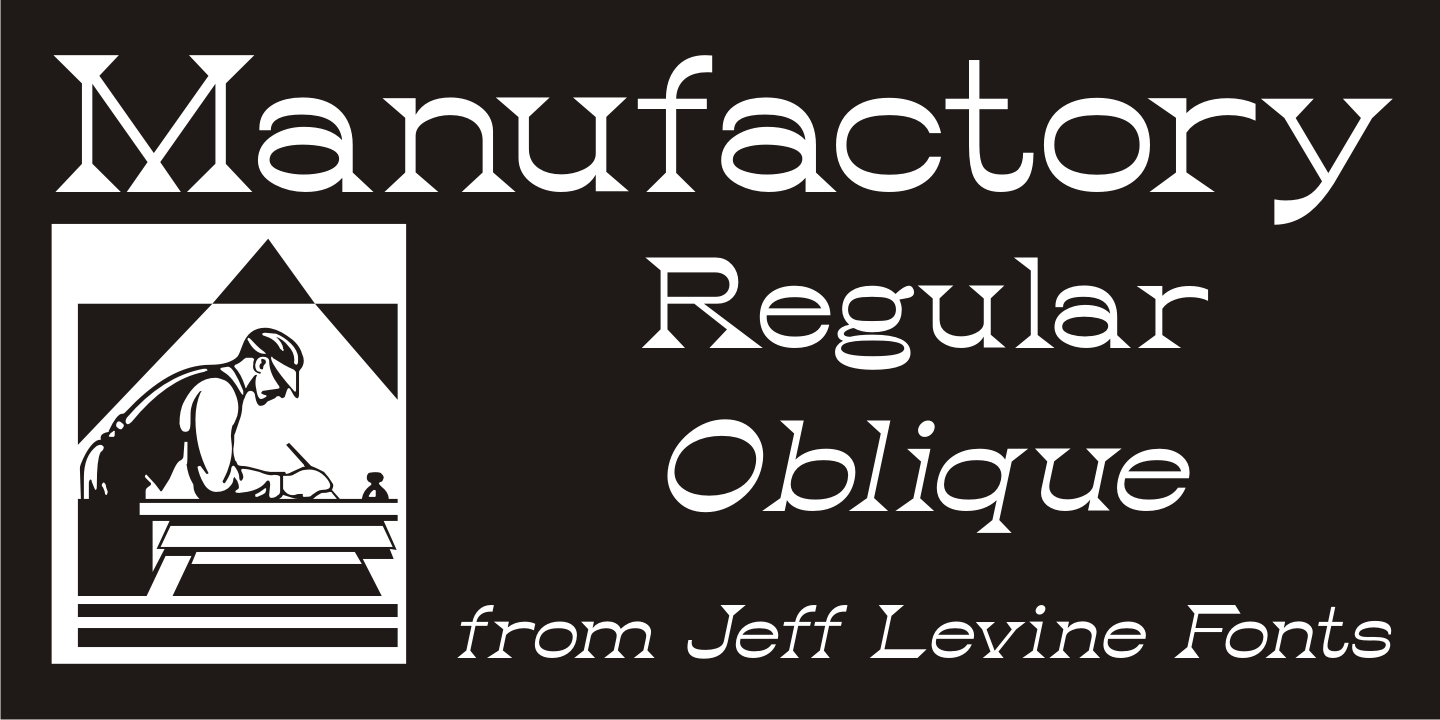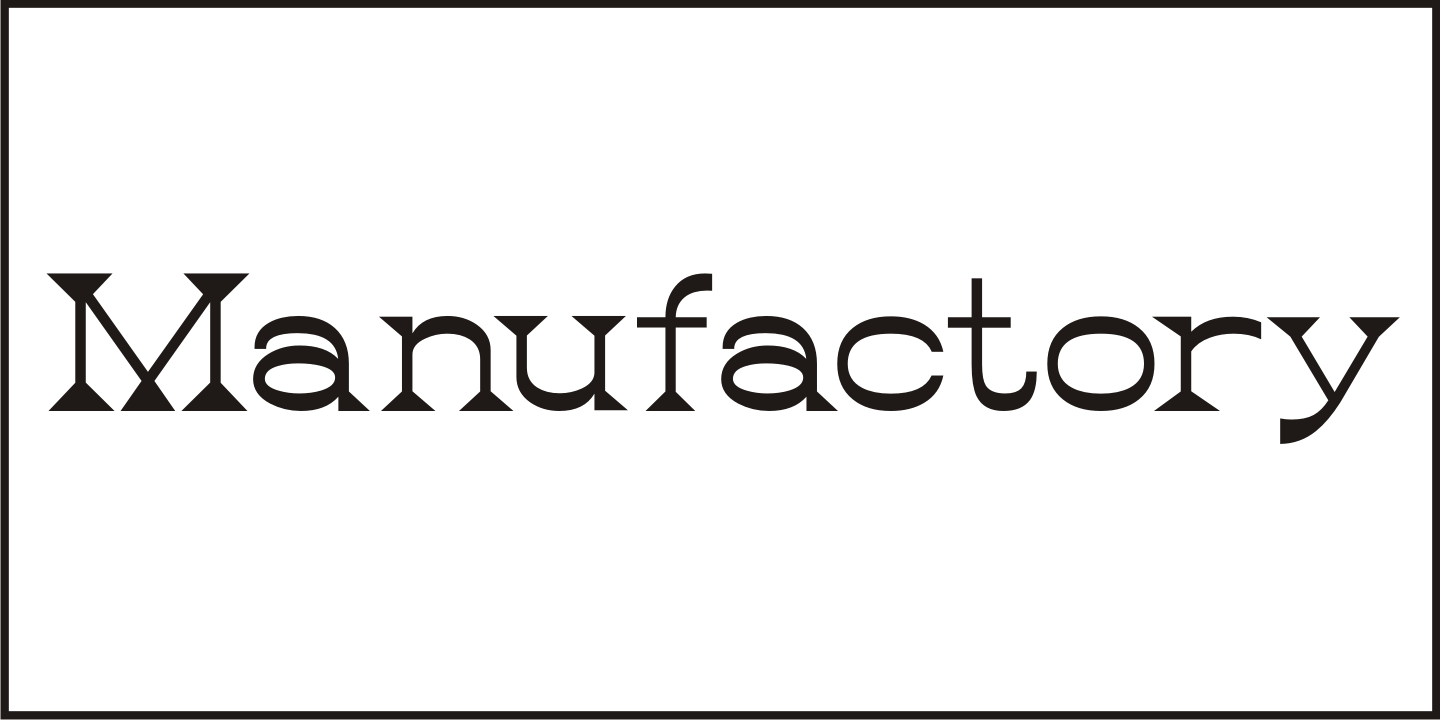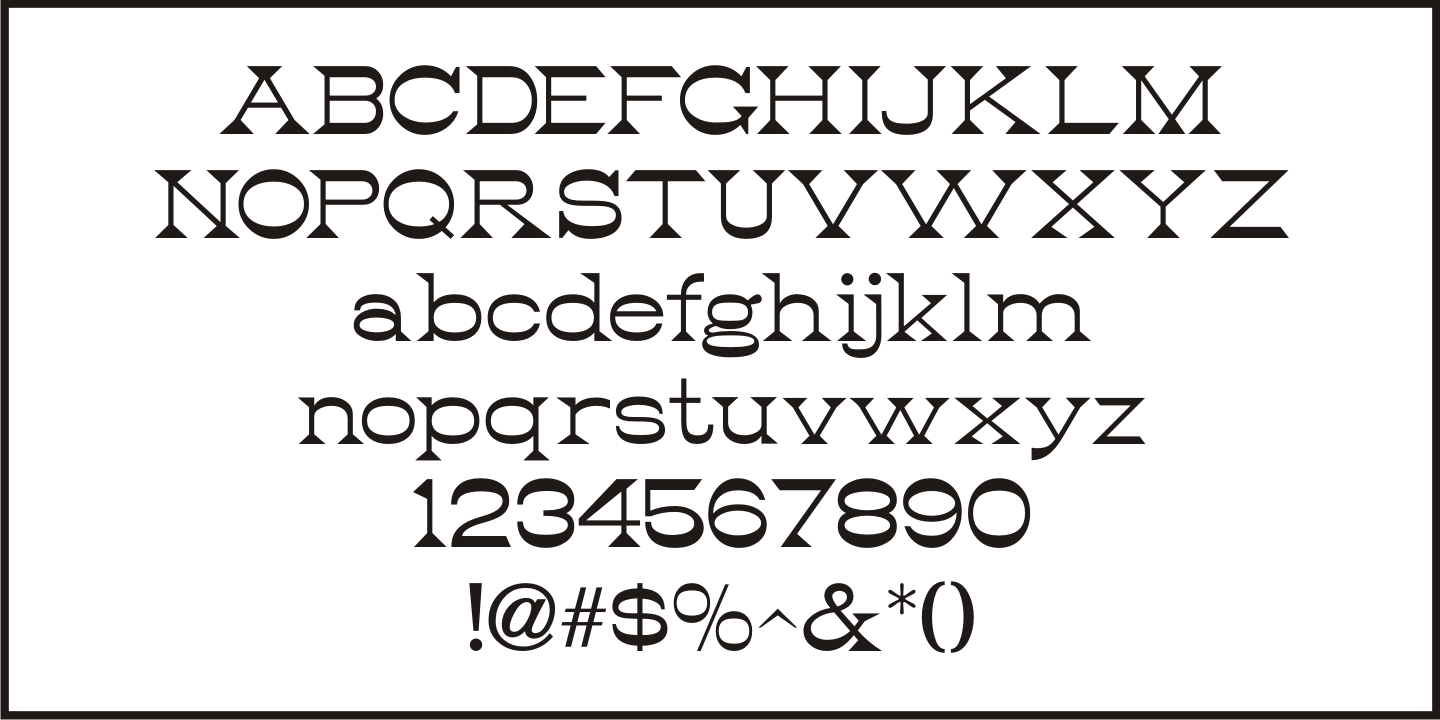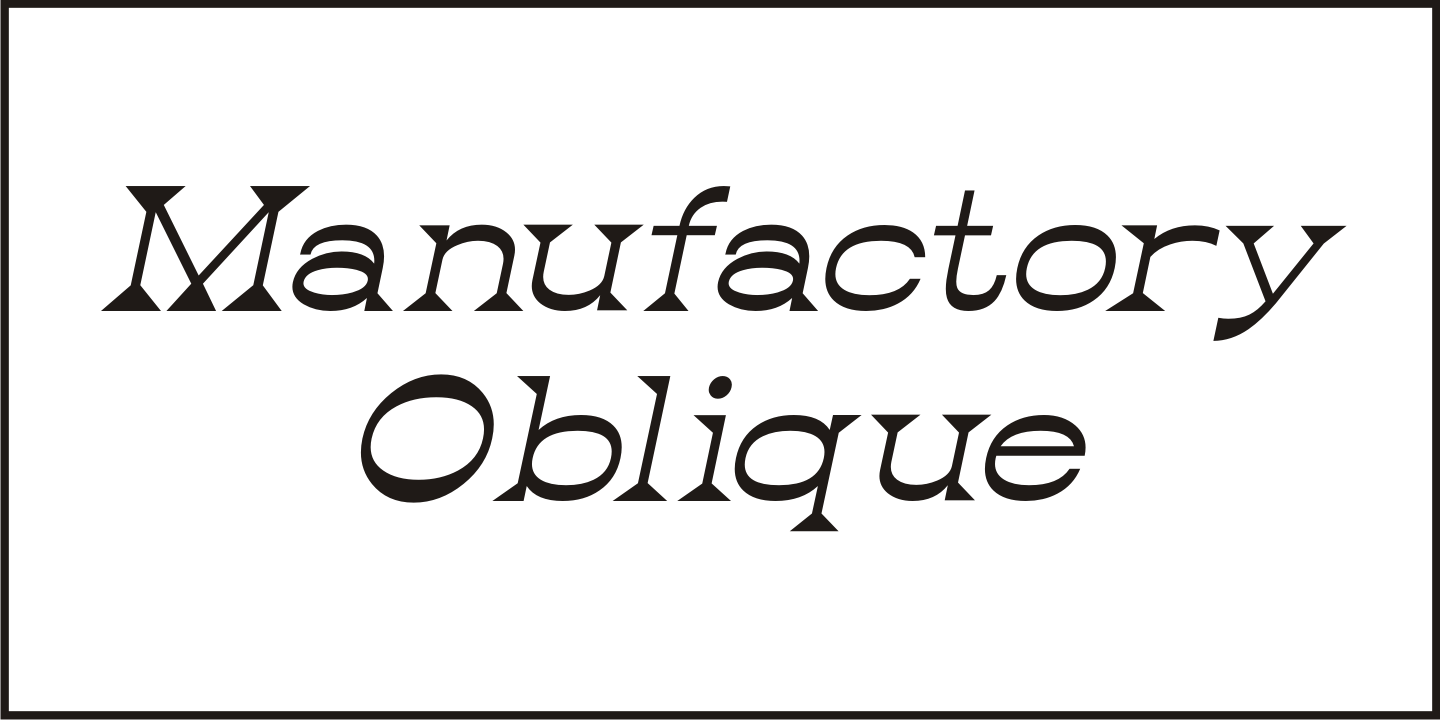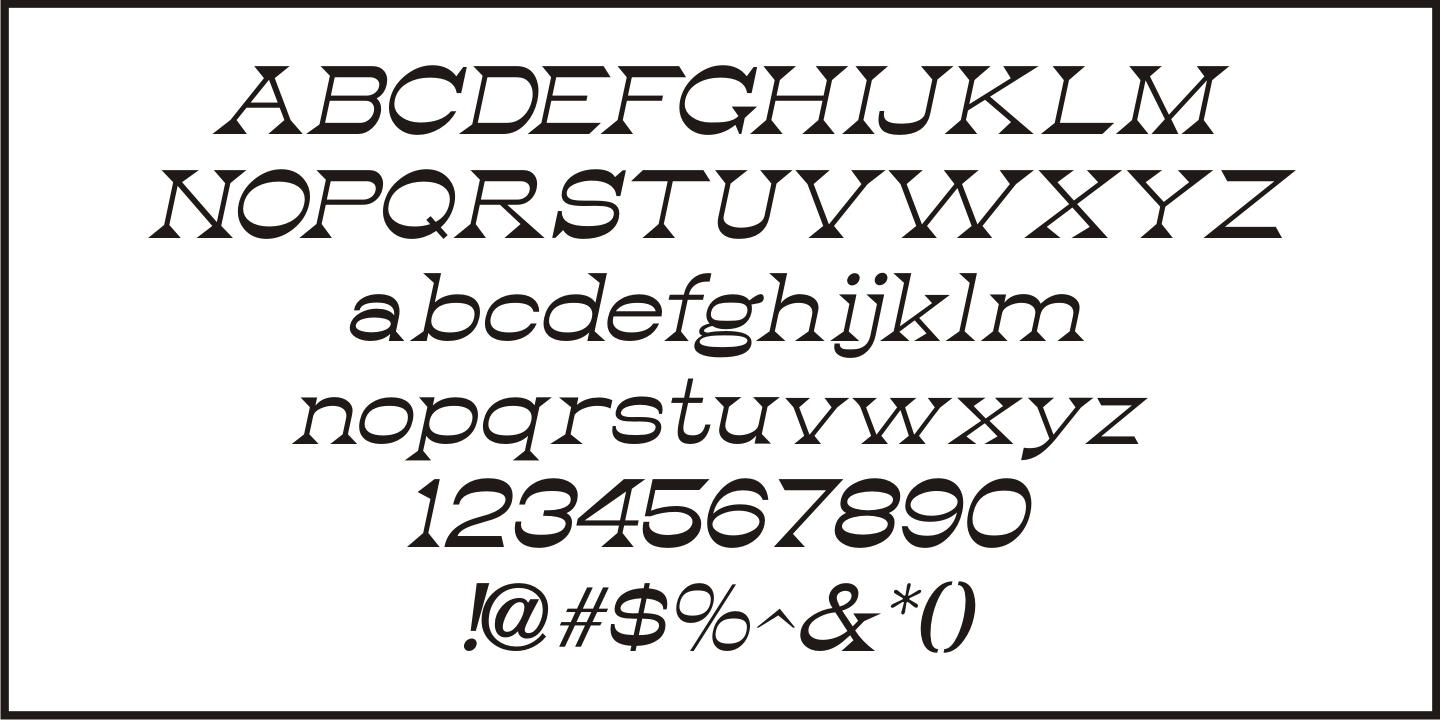
Manufactory
Manufactory JNL and its oblique counterpart were re-drawn from examples of a now-antique typeface used within many advertisements found throughout the pages of The American Stationer magazine, circa 1879.
The term 'manufactory' was popular during this era; the word being a more archaic form of 'factory'.
There is a bit of Western flavor to this type design, as the spurred serifs and the top and bottom strokes are heavier than the vertical and mid-point stroke weights.